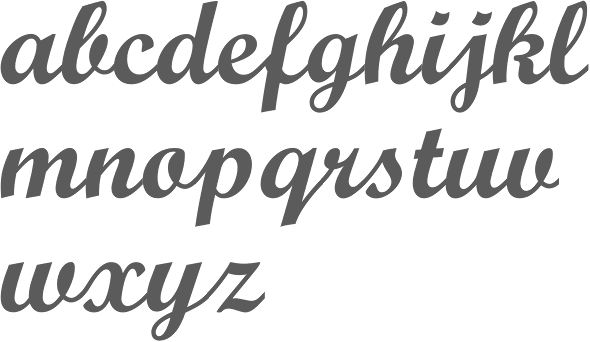
This is a beautifully crafted decorative typeface, mixed with a thin linework cursive design. Use elegant fonts to make a statement, in logos, headlines, or other short pieces of text.
List Of Best Adobe Cursive Fonts Idea In 2022, Antique olive is available in four weights (with a regular italic), plus condensed, nord and compact widths. The clean elegant glyphs are reminiscent of more traditional typefaces, but yet it has a modern, fresh, clean look.
sallowbliss is ideal to use for logo design, social media, movie and book titles, a short text, even a long text letter, and is good for your secondary text. Objectiv — the most legible and simple font for brand design; Renata — the best adobe cursive font; The thickness of each letterform combined with beautiful strokes, gives it a more appealing approach perfect for invitation card fonts.
MyFonts Connected scripts If you're looking to evoke feelings of classic elegance, this modern calligraphy font is a great choice.
Big swirly bits, huge visual appeal, and lots of variety. This fed cursive font is 100% free for both personal and commercial use. In other words, we can represent the cursive fonts as the script fonts or handwritten fonts that will bring in a natural and attractive feel to your design. Without further ado, here are our top 10 adobe fonts to use in 2021.
Big swirly bits, huge visual appeal, and lots of variety. Eaves — one of the most elegant serif fonts; Without further ado, here are our top 10 adobe fonts to use in 2021. {{ type.label }} {{ctrl.getexampletext(recommendation)}} {{recommendation.label}} signature typography, signature designs, signature fonts, arty.
What are you looking for today? The font comes available on adobe fonts in one weight only. Whether you opt to keep it on a solid color or pair it with photography, it brings an. One of the best adobe premiere fonts on our list! 12 Best Adobe Script Fonts 2020 Viktor Kilo Brand Elevation Agency.
This font works well in both digital and print scenarios. Ff tisa —best adobe font for body copy. Rollerscrift —best font for product label. Without further ado, here are our top 10 adobe fonts to use in 2021. Indesign Signature Script Signature fonts, Indesign, Lettering.
Smoothy is the best cursive font for posters. {{ type.label }} {{ctrl.getexampletext(recommendation)}} {{recommendation.label}} Bickham script — a decorative and flamboyant script font; The font comes available on adobe fonts in one weight only. 919 best Fonts CatTemplate images on Pinterest Adobe.
Antique olive is available in four weights (with a regular italic), plus condensed, nord and compact widths. Diginate 10 of the best adobe fonts in 2020 diginate. Museo slab —great for infographics and posters. In the arabic, latin, and cyrillic alphabets, many or all letters in a word are connected, sometimes making a word one single complex stroke. MyFonts Retro script typefaces.
Nearly all the lowercase characters are connecting in this upright design. Rollerscrift —best font for product label. This cursive typeface has beautiful and stunning characters, and it supports more than 100 languages. This fed cursive font is 100% free for both personal and commercial use. Best Adobe Cursive Fonts.
Acumin — a versatile sans serif typeface; Proxima nova —great font for web design. This cursive typeface has beautiful and stunning characters, and it supports more than 100 languages. The smoothy script font is ideal for designers looking for a suitable script font for headings, posters, signage, and other applications. Beautiful design!! View details click here!.
Fertigo script is a warm, sturdy, connecting script with a lyrical, calligraphic touch. Adobe caslon by carol twombly and william caslon. Most of them relate to “script” (other than gigi), showing that they’re all. So without further ado, here are five adobe script fonts worthy of your consideration. 5 favorite cursive fonts with glyphs {and how to use them} jones.
Eaves — one of the most elegant serif fonts; Without further ado, here are our top 10 adobe fonts to use in 2021. Fertigo script is a warm, sturdy, connecting script with a lyrical, calligraphic touch. This cursive typeface has beautiful and stunning characters, and it supports more than 100 languages. 12 Best Adobe Script Fonts 2020 Viktor Kilo Brand Elevation Agency.
What are you looking for today? Whilst a cursive decorative font, the typeface still holds an impressive level of readability, making it viable as a titling font as well. Typography is one of the most important factors when it comes to design, and we have some best font options here. Plenty of options for your projects. Best Free Script Handwriting Fonts Wild Side Design Co. Handwriting.
Carol Twombly And William Caslon) This Timeless Classic Is A Favourite In The World Of Publishing, Bringing An.
Use elegant fonts to make a statement, in logos, headlines, or other short pieces of text. What are you looking for today? Big swirly bits, huge visual appeal, and lots of variety. In the arabic, latin, and cyrillic alphabets, many or all letters in a word are connected, sometimes making a word one single complex stroke.